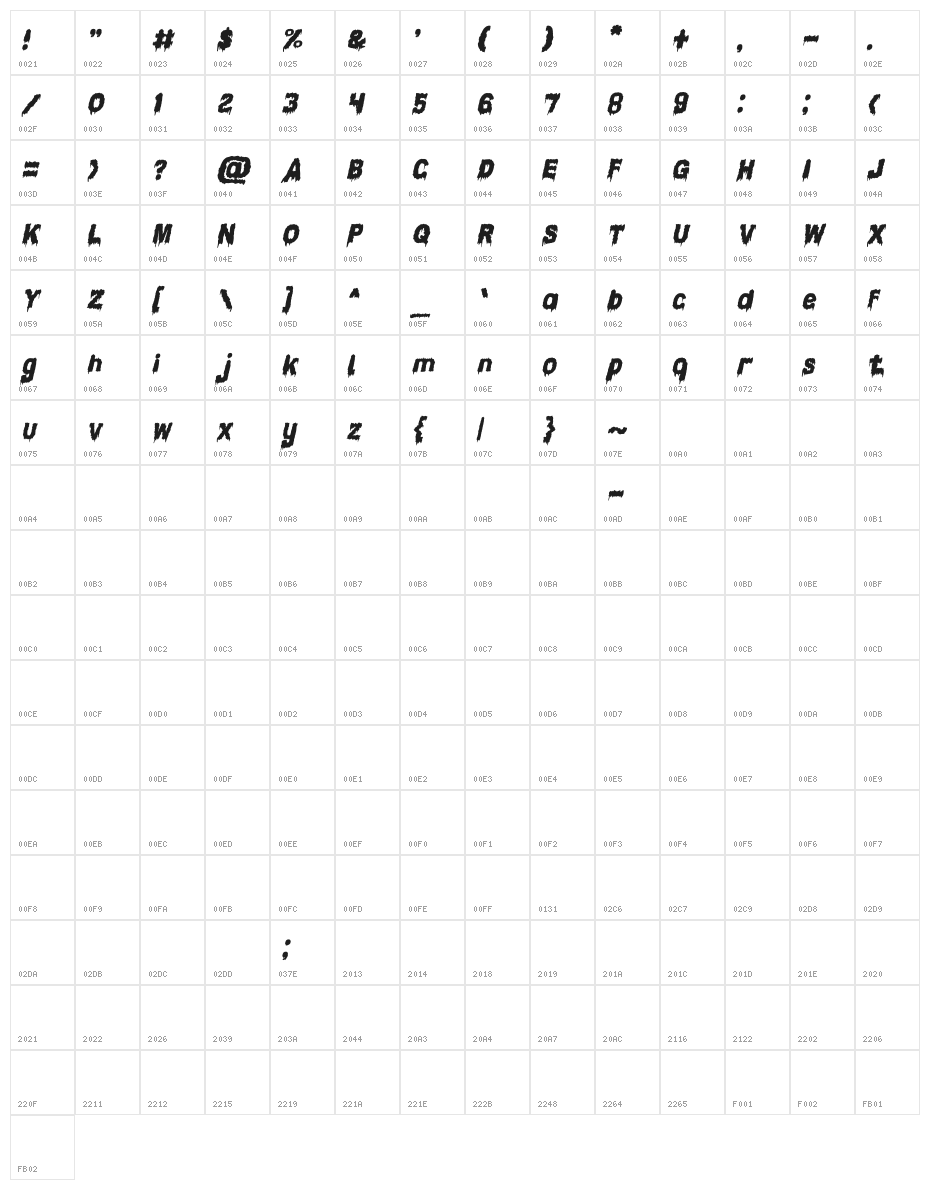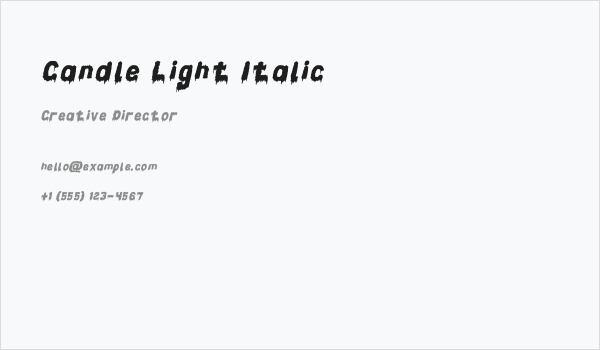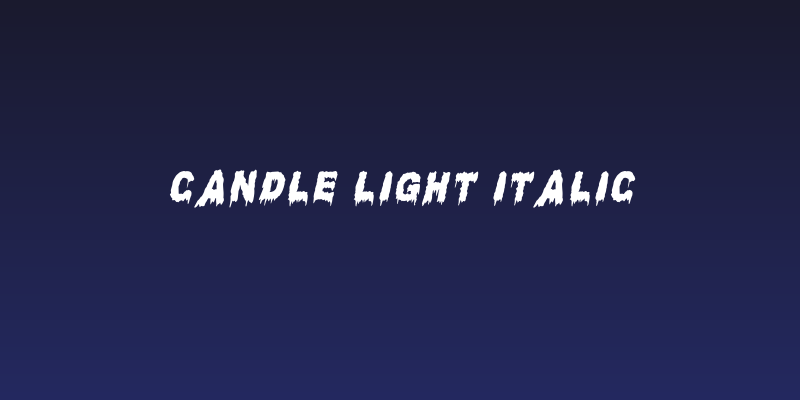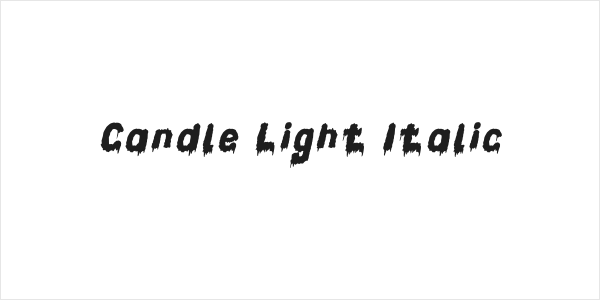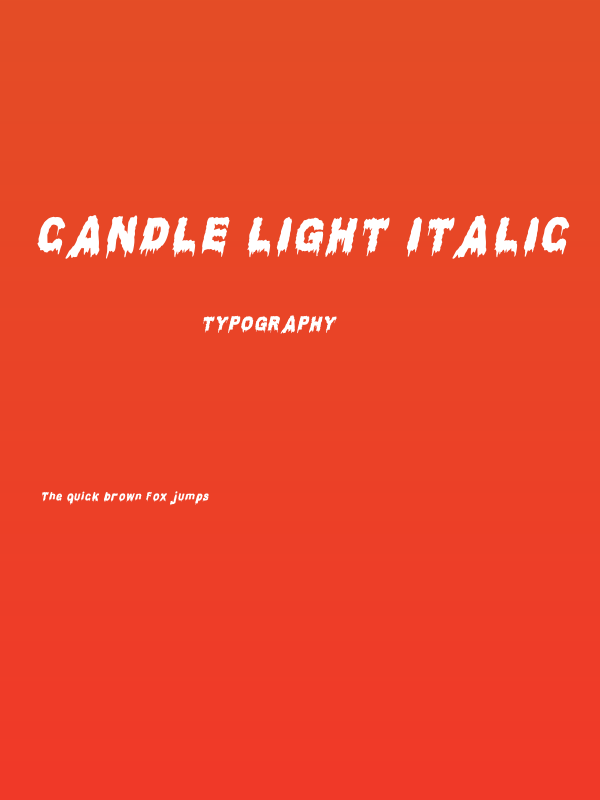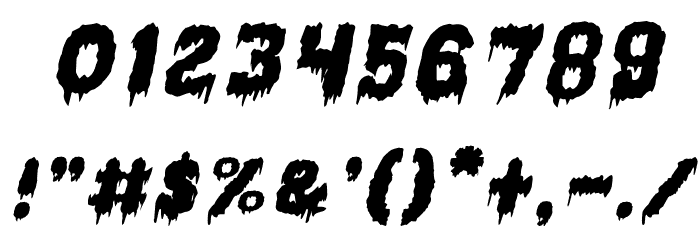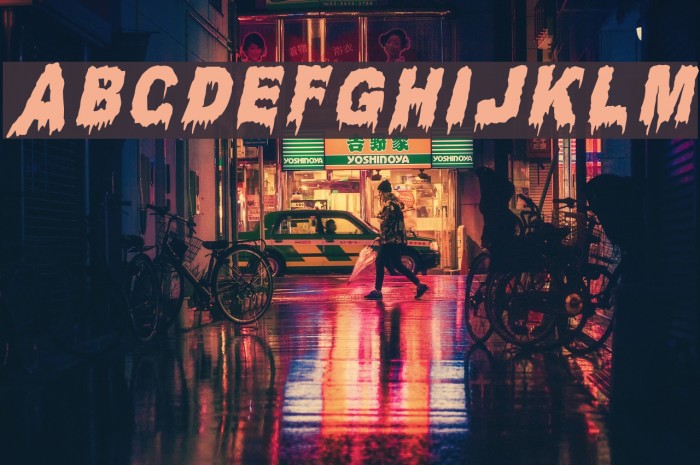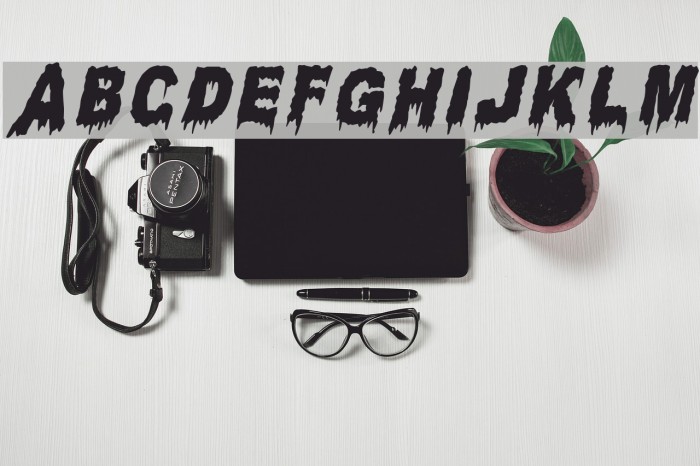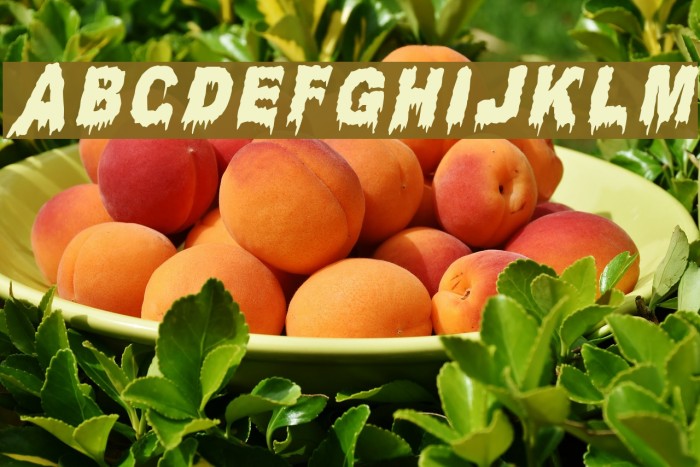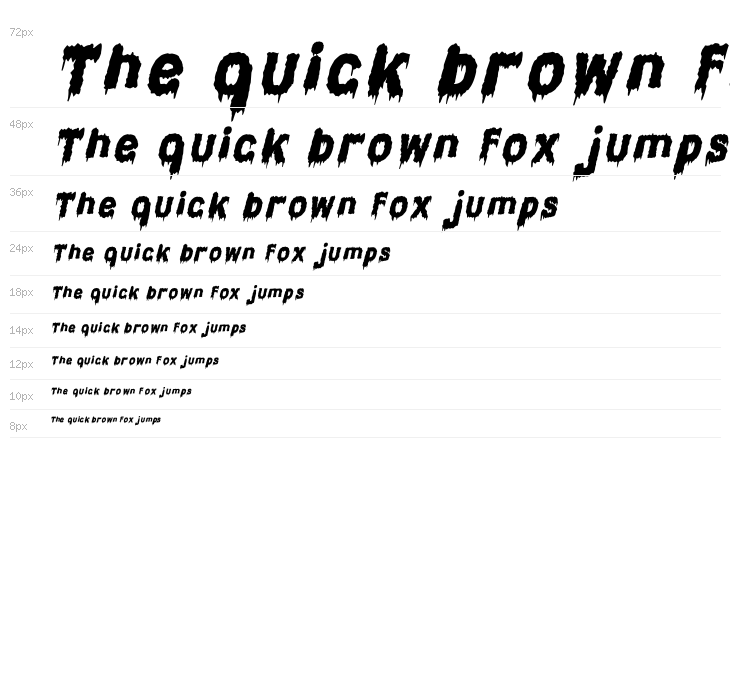
Candle Light Italic Font
This font features a dramatic, dripping style that evokes a sense of mystery and intrigue. The characters appear as if they are melting or dissolving, creating a haunting and eerie effect. Each letter is uniquely crafted with irregular edges and a bold presence, making it ideal for themes that require a spooky or horror-inspired aesthetic. The italic slant adds a dynamic and unsettling motion to the text, enhancing its overall impact. This font is perfect for creating eye-catching titles and designs that demand attention and convey a sense of the supernatural.
| Proposed Projects | Ideal for Halloween-themed designs, horror movie posters, haunted house flyers, and spooky event invitations. |